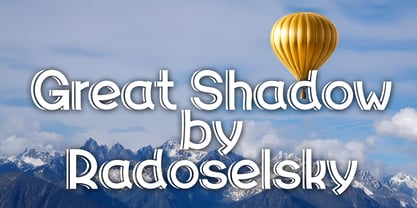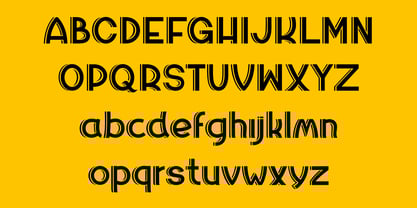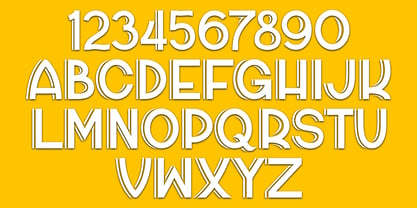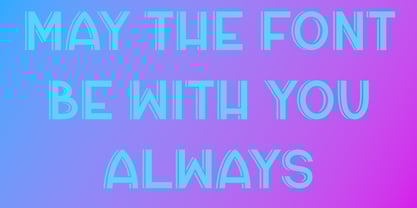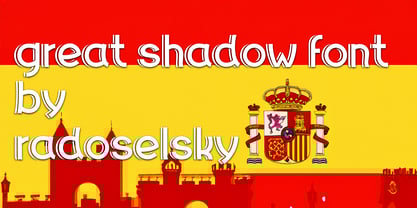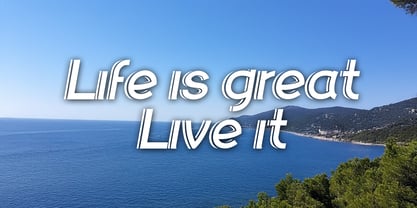
Great Shadow
by Radoselsky
The Great Shadow Font Family was designed by Eugene Radoselsky and published by Radoselsky. Great Shadow contains 1 styles. More about this family
Introducing a meticulously crafted typeface with 218 unique symbols, designed to support multiple languages including English, Spanish, Portuguese, German, French, and Italian. This font combines functionality with style, featuring an innovative 3D-inspired structure that adds depth and dimension to every character. Perfect for both print and digital media, it offers a modern yet versatile aesthetic, ideal for branding, headlines, posters, and creative projects. Its precision-crafted details ensure excellent legibility while maintaining a bold and sophisticated look.
• Character Set: Includes 218 characters, featuring:
• Uppercase and lowercase letters (A-Z, a-z)
• Numbers (0-9)
• Punctuation and symbols
• Accented characters like é, ü, ñ, ç, à, and others for full language support
Designers: Eugene Radoselsky
Foundry: Radoselsky